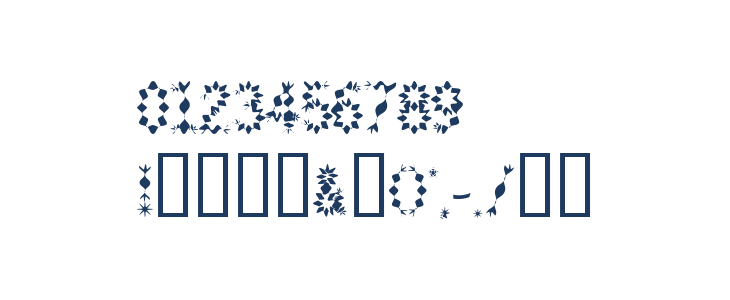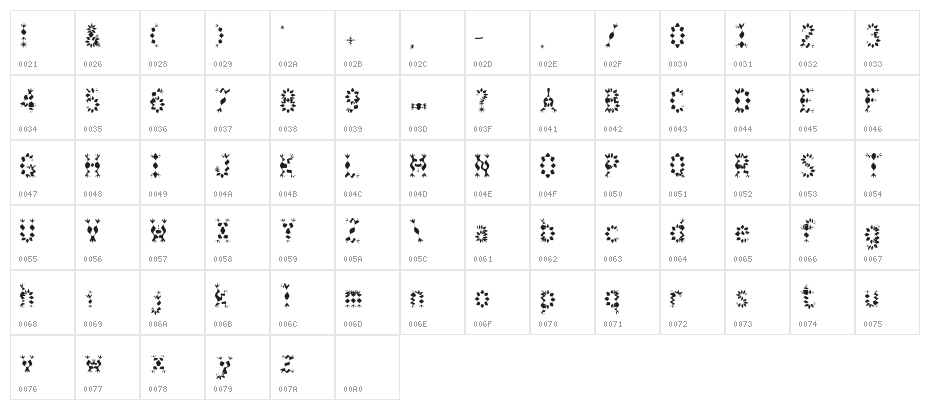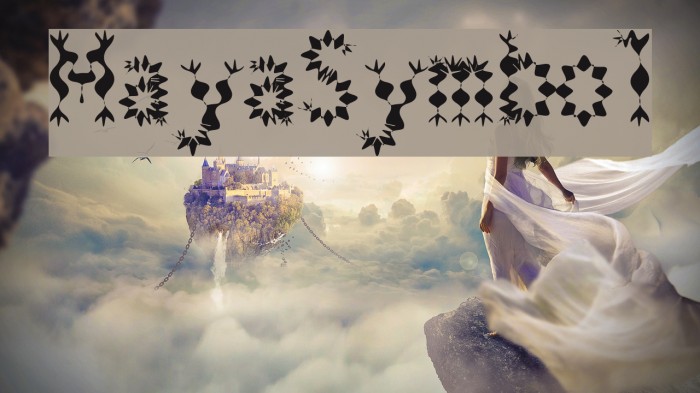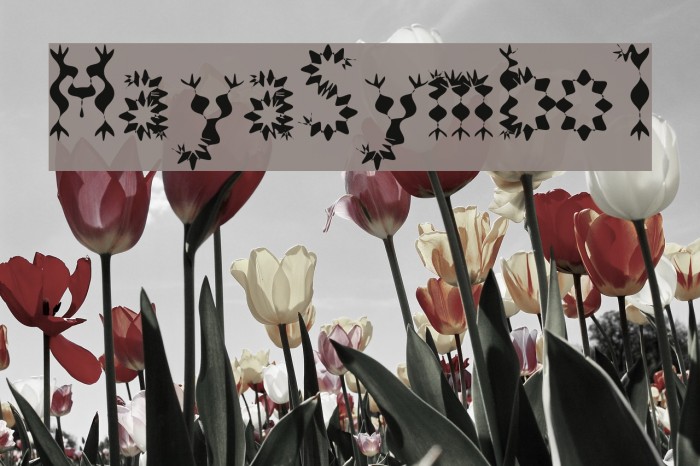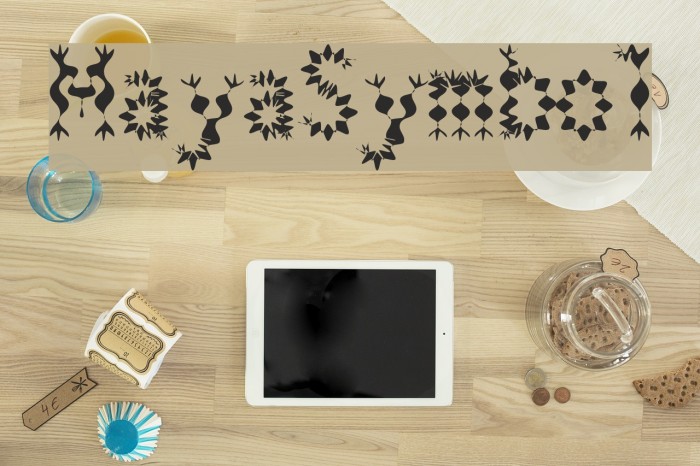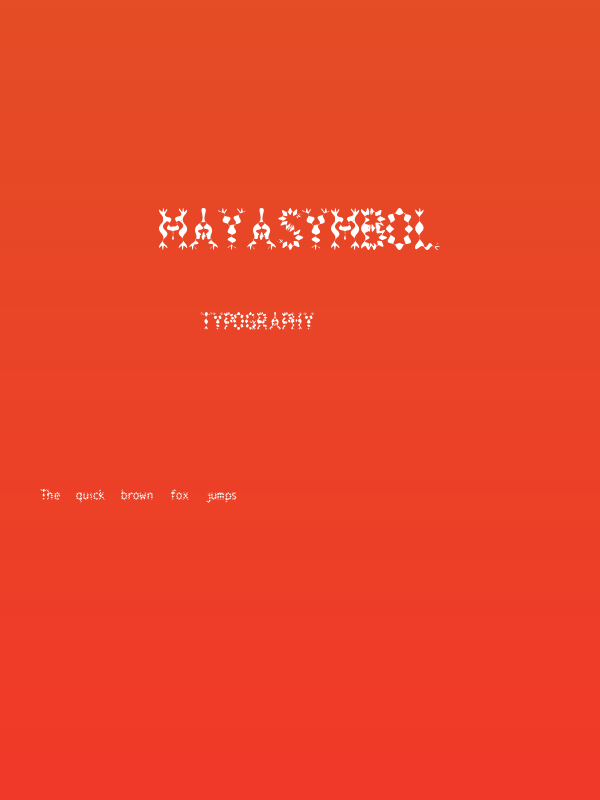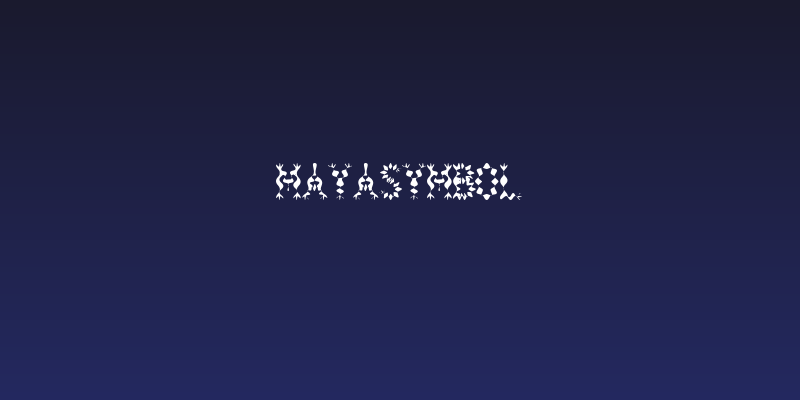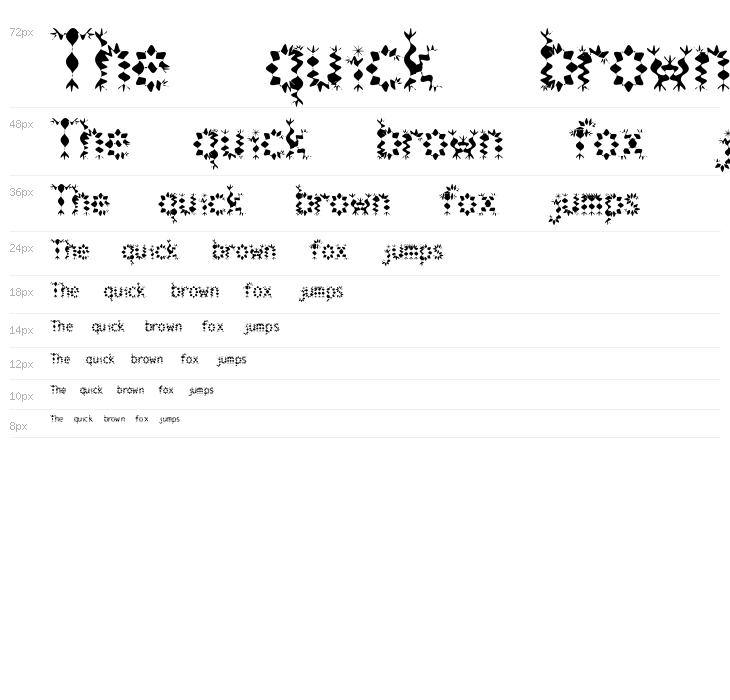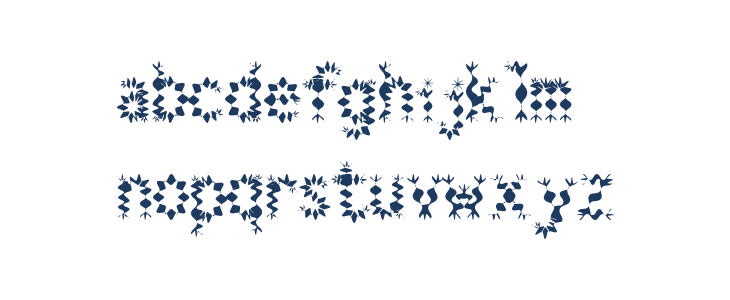
MayaSymbol Font
MayaSymbol Description
This font is a highly decorative and intricate design inspired by ancient symbols and motifs. Each character is composed of complex geometric shapes and patterns, resembling traditional art forms. The letters are adorned with symmetrical elements, giving them a unique and artistic appearance. The font's style is reminiscent of cultural and historical aesthetics, making it stand out with its bold and elaborate design. The characters are not uniform in width, adding to the font's dynamic and expressive nature. This font is ideal for projects that require a touch of historical or cultural flair, offering a distinct and memorable visual impact.
| Use Case | Headlines, Logos, Artistic projects |
| Proposed Projects | Ideal for cultural event posters, historical themed designs, artistic projects, and decorative headings. |